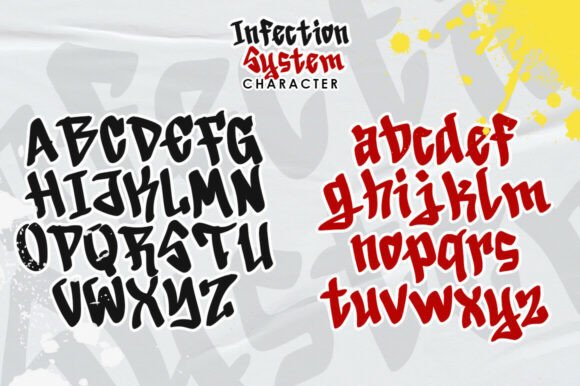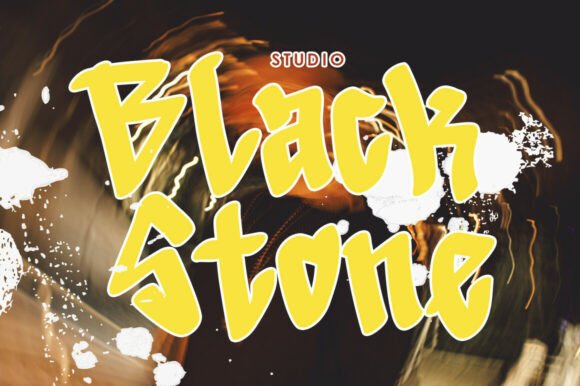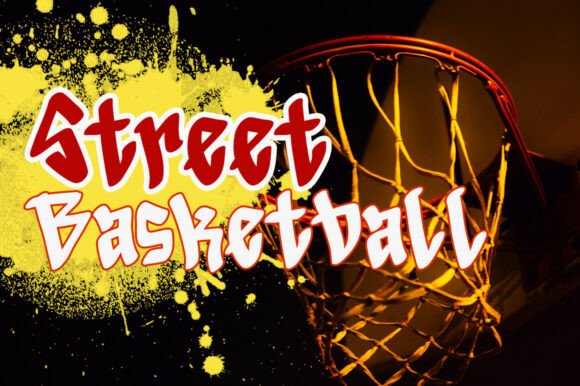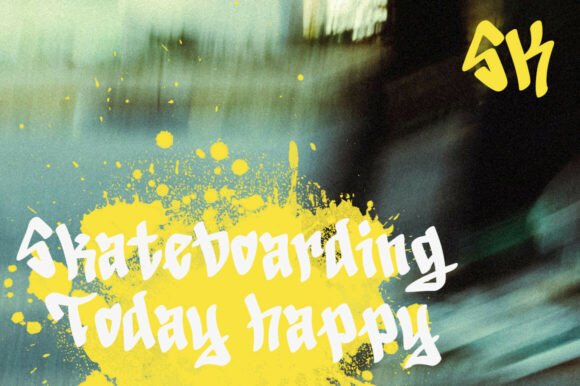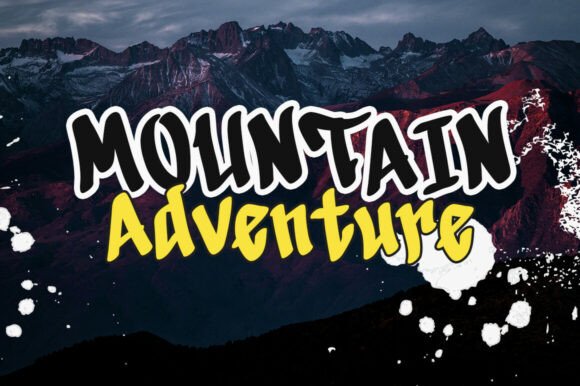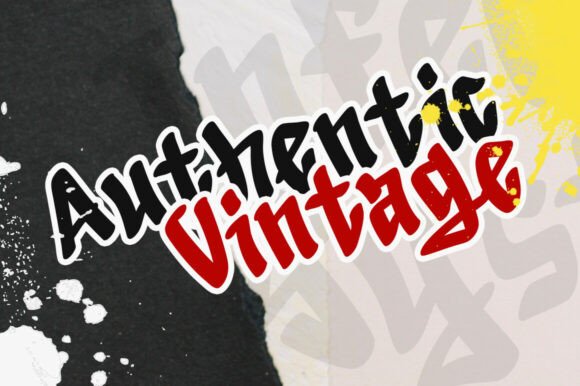
Introduction to Infection System Font
Remember that moment when you’re brainstorming ideas for your next creative project, and you’re stuck on finding the perfect font to match your design vision? You’ve got a clear idea of what you want to convey, but nothing seems to capture the essence of your concept. That’s where the Infection System Font comes in – a game-changing design resource that will elevate your designs to the next level.
With its bold, expressive, and characterful style, the Infection System Font is perfect for designers looking to add an edgy and modern touch to their work. This street and graffiti-style font is inspired by urban culture and features dynamic curves, making it ideal for poster designs, hip-hop or rap music titles, streetwear artwork, and more. And the best part? It’s available for a free download, allowing you to experiment with its high-quality features on a transparent background.
Whether you’re working on a personal or professional project, the Infection System Font is a valuable addition to your design toolkit. Its versatility and bold style make it a must-have for designers looking to create eye-catching and memorable designs that leave a lasting impression.
Infection System Font
- Features a unique, modern design with a resolution of 300 DPI, suitable for print and digital applications.
Honest Review: Infection System Font
I recently came across the Infection System Font, and I’m excited to share my thoughts on this design resource. The first thing that caught my attention was the high-quality design of the font. It’s perfect for a creative project that requires a bold and edgy look.
What works well: ✨ The font has a wide range of characters, making it suitable for various languages. It also comes with a transparent background, which is ideal for creating graphics with a seamless background.
- Wide range of characters
However, I did notice a few limitations: ⚠️ The font may not be suitable for projects that require a more subtle or elegant look. Additionally, the font may not be compatible with all operating systems or software.
Overall, I’m impressed with the Infection System Font. It’s a great addition to any designer’s toolkit, and I would definitely recommend it for creative projects that require a bold and edgy look.
Infection System Font
The Infection System Font is a high-quality design resource ideal for creative projects. It features a unique and bold aesthetic, perfect for making a statement in your designs.
For best results, use the Infection System Font on a transparent background to create a bold and eye-catching effect. You can also experiment with different font sizes and colors to create a unique look.
The Infection System Font is perfect for a variety of creative projects, including posters, flyers, social media graphics, and presentations. It’s also great for creating attention-grabbing headlines and titles.
With its unique and captivating style, the Infection System Font is sure to add a touch of sophistication and creativity to your work. Whether you’re working on a commercial project or a personal endeavor, this font is sure to impress. So, what are you waiting for? Download the Infection System Font today and experience the power of high-quality design for yourself. Try it out and see how it can transform your creative project into a masterpiece.